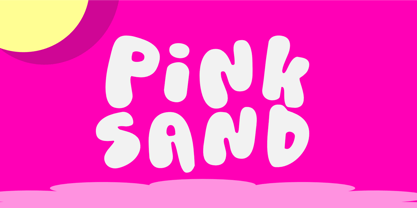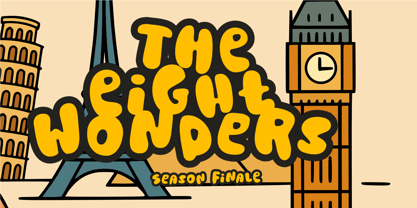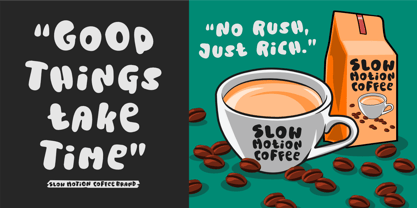
Pink Sand
by Olivetype
The Pink Sand Font Family was designed by Nurul Hidayani and published by Olivetype. Pink Sand contains 1 styles.
Pink Sand is a bold, cute, and fun display font designed to make your words shine with charm and personality. Inspired by the soft beauty of pastel tones and the lively spirit of summer, this typeface brings a playful yet striking look to every project. Its thick strokes and rounded edges give it a friendly, approachable vibe while maintaining the boldness you need for headlines, logos, and eye-catching titles.
Perfect for movie posters, gaming titles, product packaging, branding projects, and social media content, Pink Sand delivers versatility without losing its character. Its modern and playful aesthetic makes it suitable for both digital and print designs, whether you’re working on a youthful brand identity, a colorful advertising campaign, or trendy merchandise.
Imagine your text styled in Pink Sand on snack packaging, cosmetic labels, café menus, fashion tags, or Instagram posts—instantly making your design look more fun, youthful, and unforgettable. This font is also great for DIY crafts, invitations, stickers, and creative quotes, adding a burst of joy wherever it’s used.
With its unique combination of boldness and cuteness, Pink Sand ensures your message not only stands out but also leaves a lasting impression. It’s a go-to font for designers, creators, and brands who want to capture attention with a playful yet professional look.
Designers: Nurul Hidayani
Publisher: Olivetype
Foundry: Olivetype
Design Owner: Olivetype